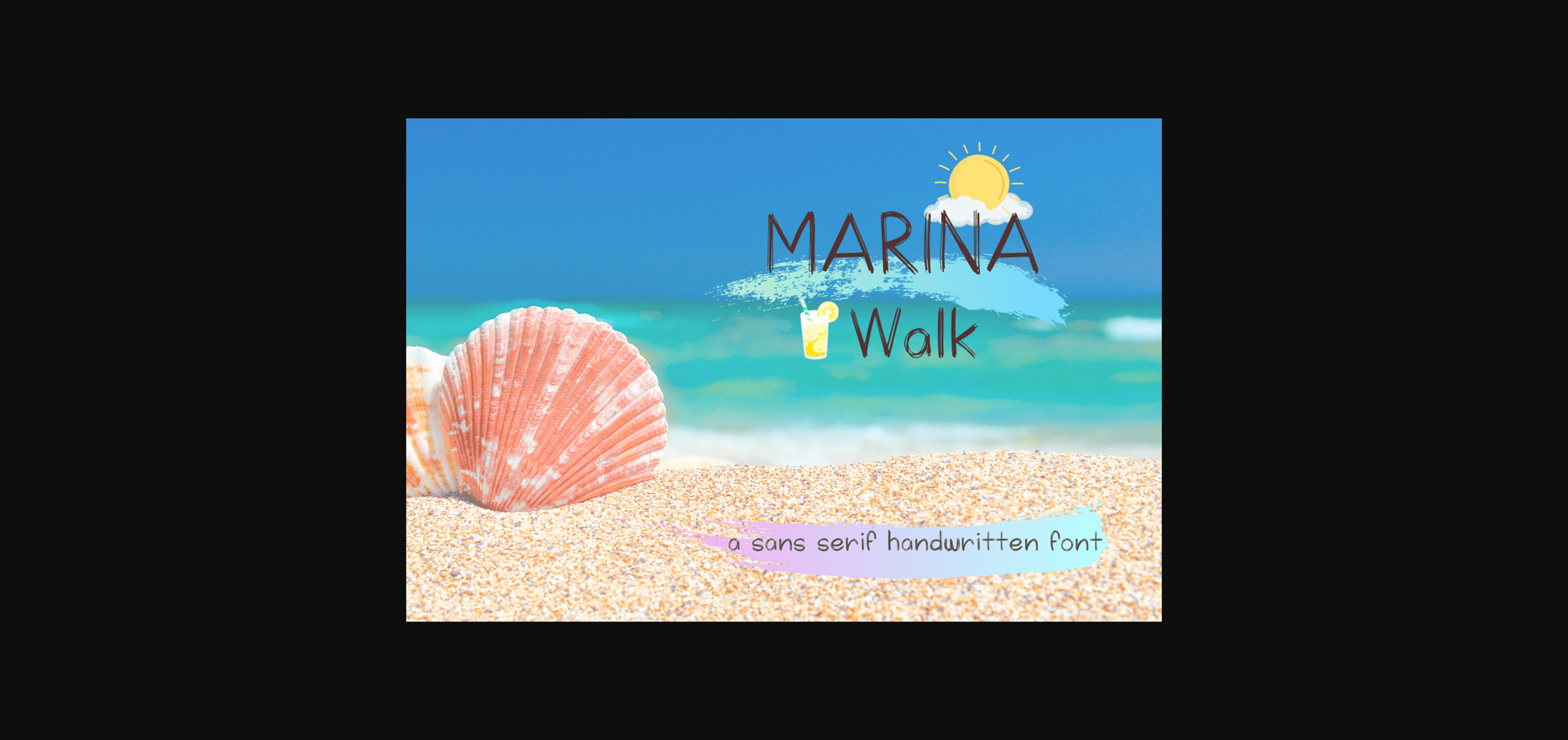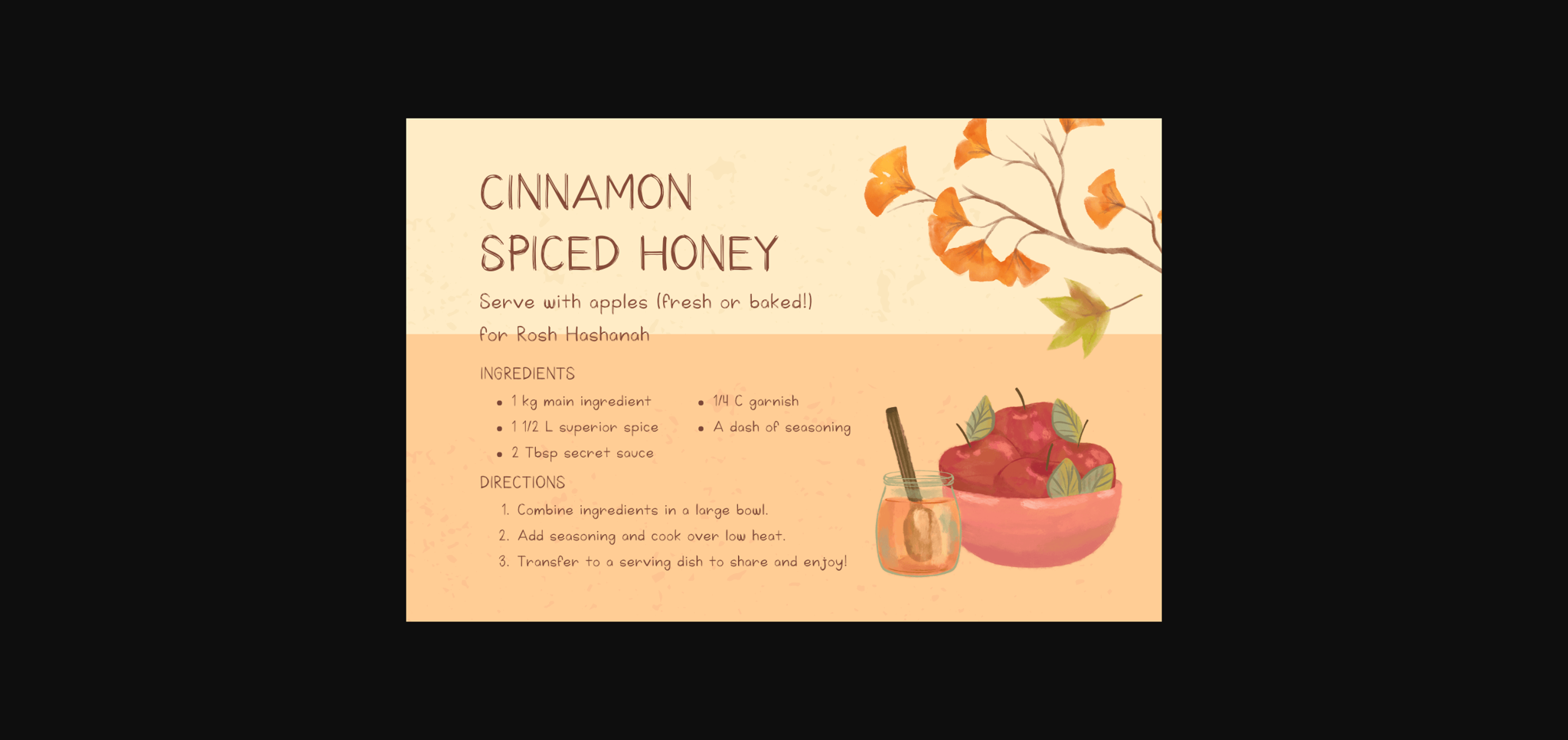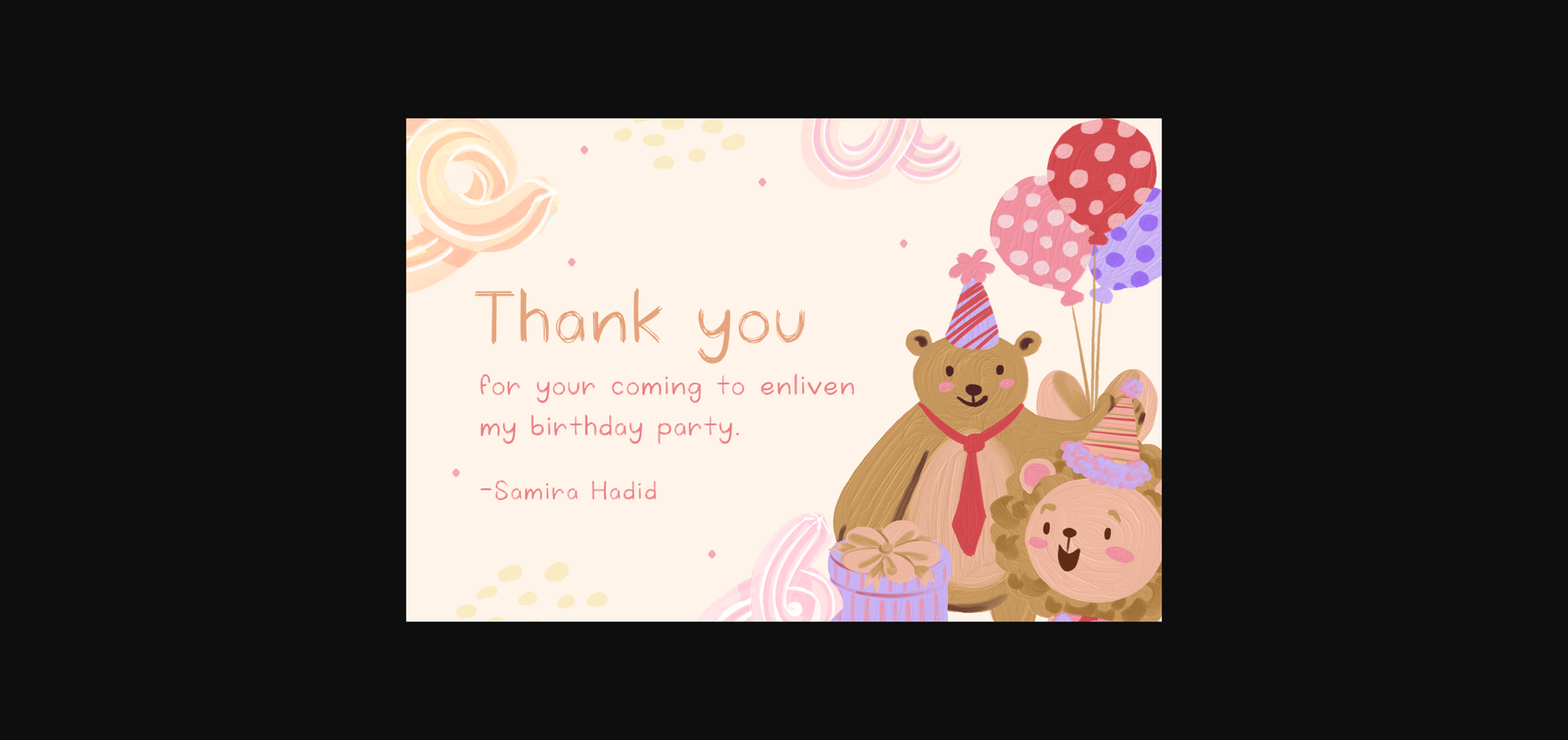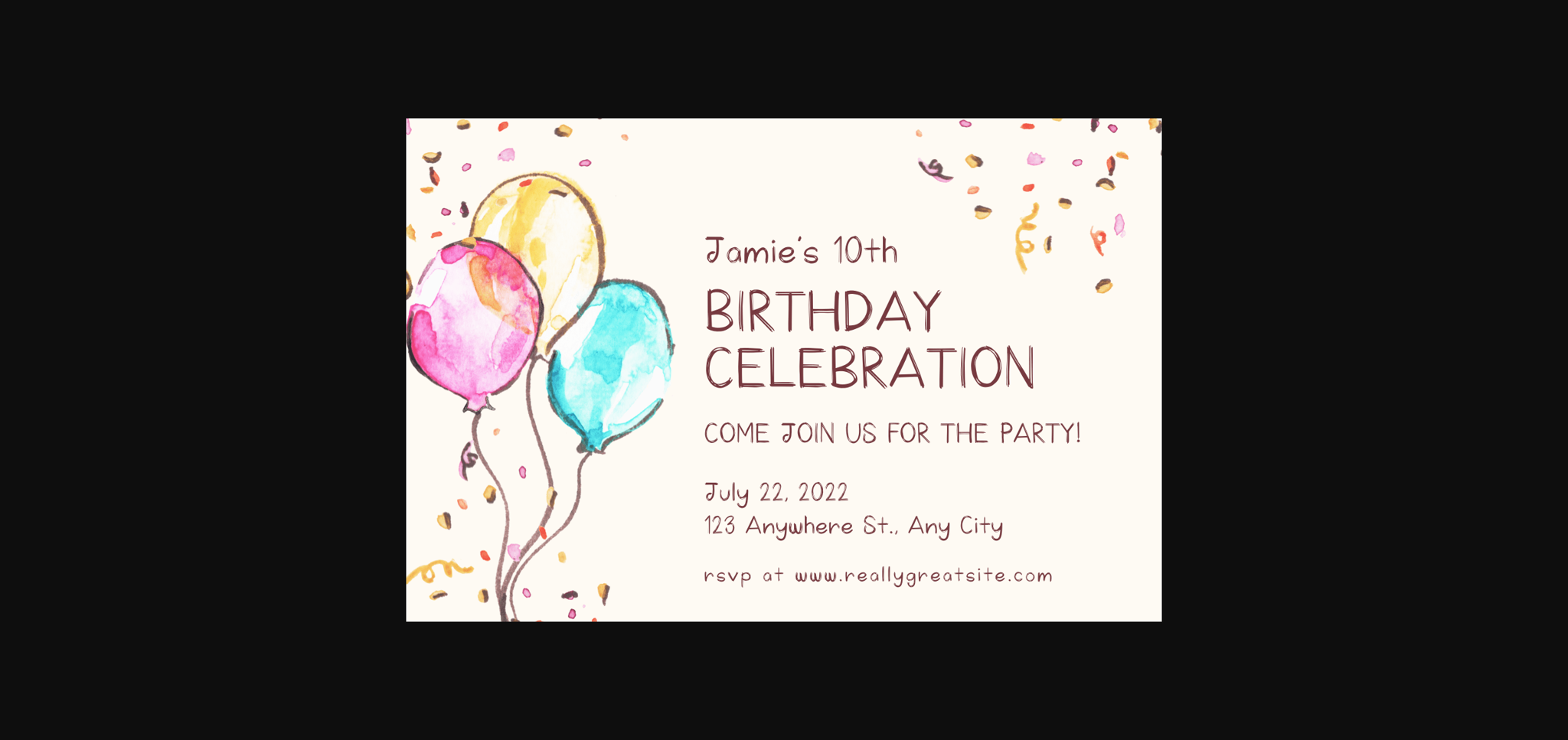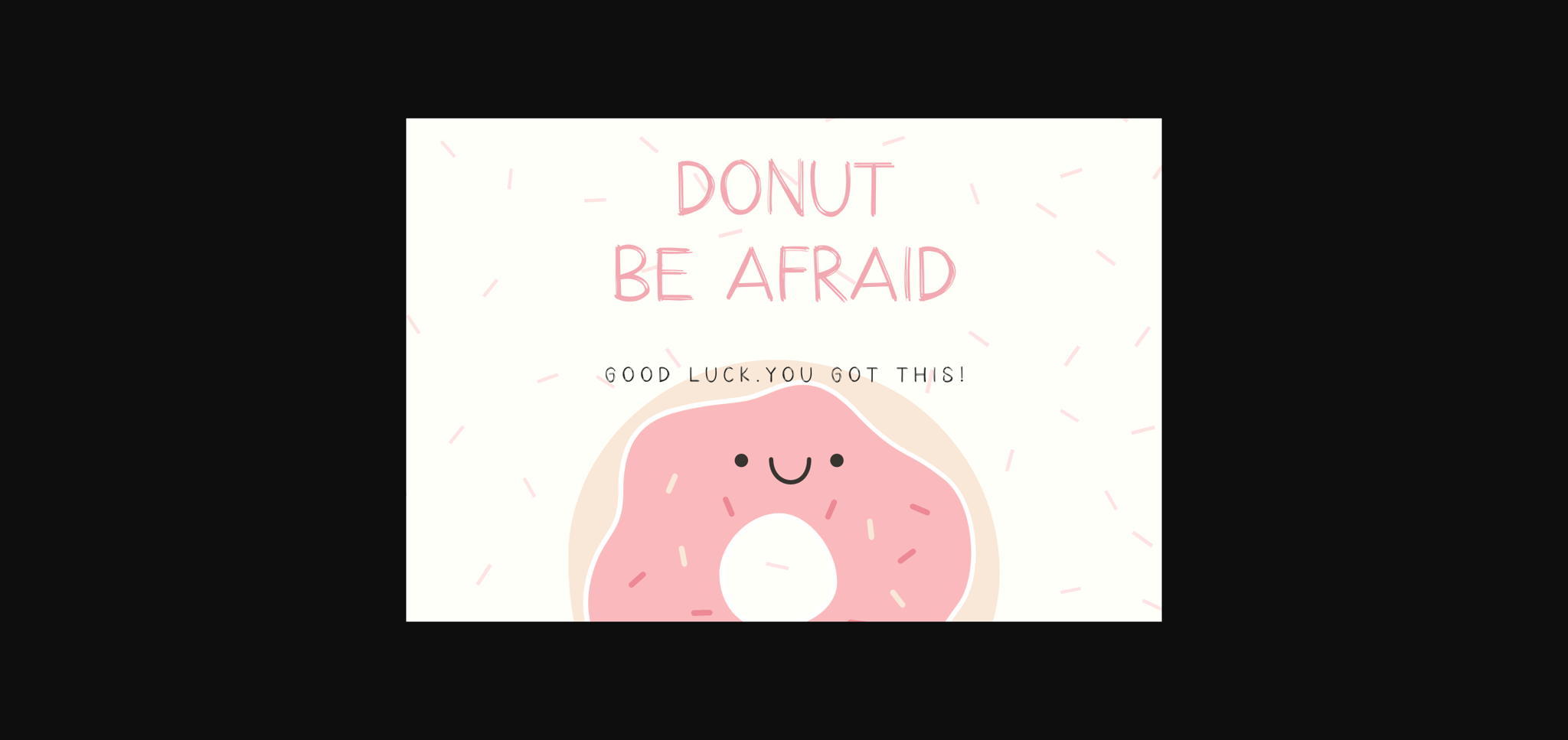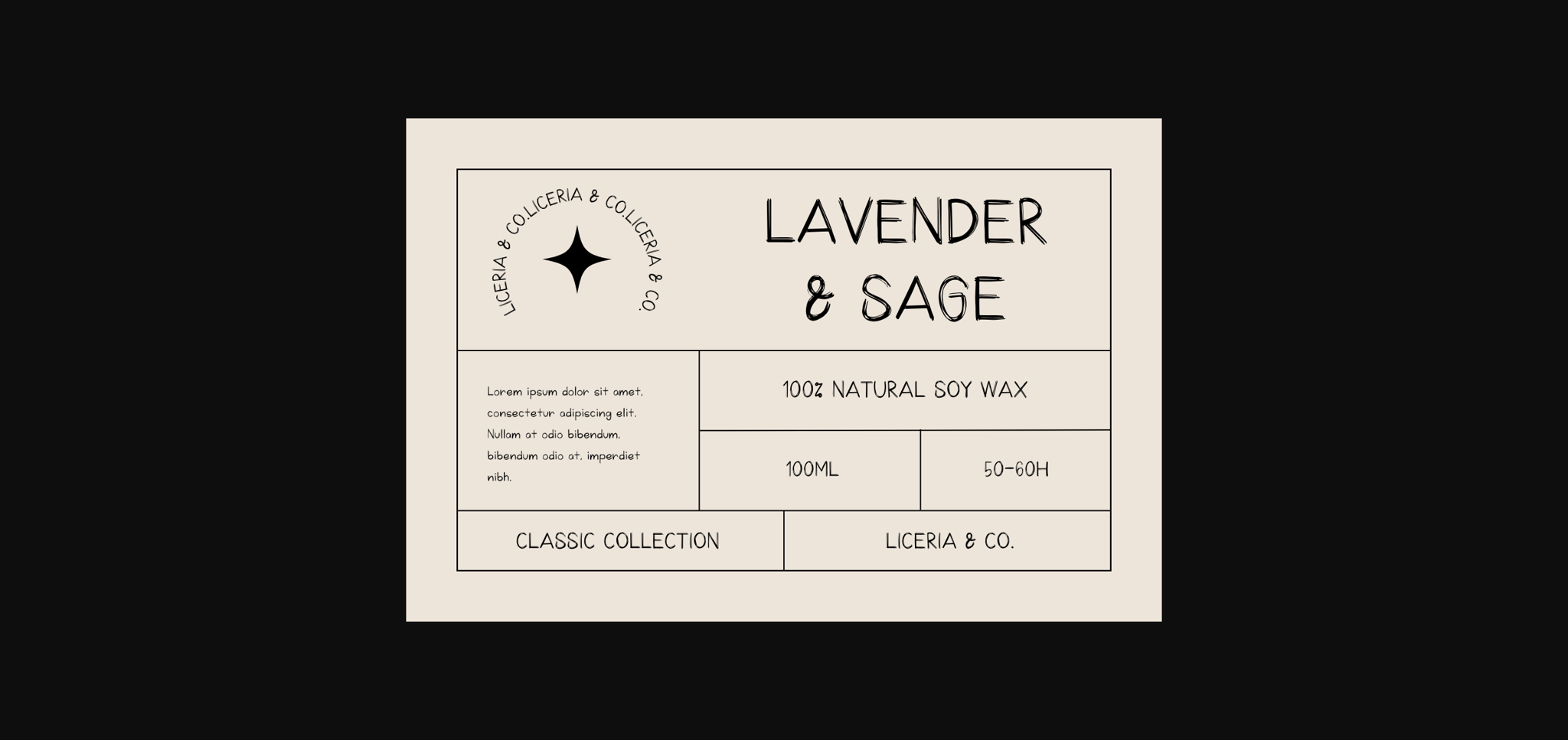
About Marina Walk Font
Marina Walk is a cute and casual handwritten sans serif font. Whether you’re using it for crafts, digital design, presentations, or making greeting cards, this font has the potential to become your favorite go-to font, no matter the occasion!